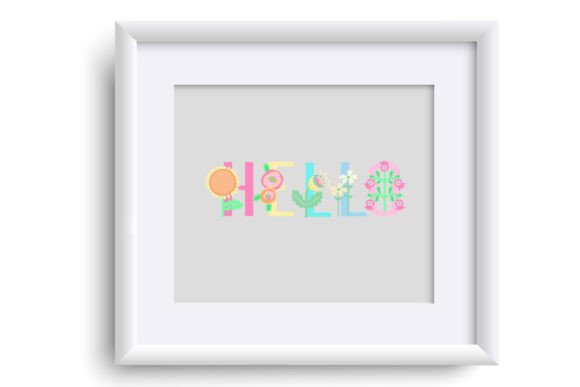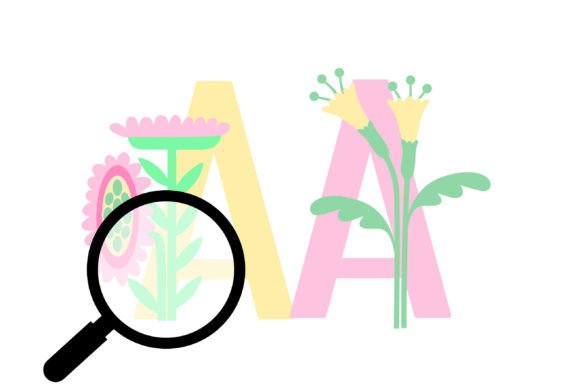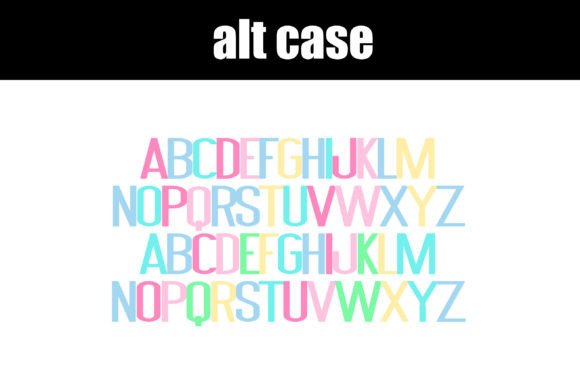
Introduction to Colorful Life Too Font
Have you ever been in a creative flow, staring at a blank page or screen, and suddenly an idea bursts forth in a kaleidoscope of colors? That’s exactly what happened when I discovered the stunning Colorful Life Too Font. This exquisite floral color font is a game-changer for designers looking to add a touch of sophistication and allure to their projects.
Whether you’re designing invitations, cards, posters, or any other creative endeavor, Colorful Life Too Font is sure to captivate your audience and leave a lasting impression.
Key Features of Colorful Life Too Font
- High-quality design resource with a unique and playful style, perfect for creative projects.
- Comes with a transparent background, making it easy to use in any design project.
- Includes a wide range of characters, including uppercase and lowercase letters, numbers, and special symbols.
- Designed with a bold and vibrant color scheme, adding a pop of color to any creative project.
Honest Review: Colorful Life Too Font
I recently had the chance to work with the Colorful Life Too Font, and I must say, it’s been a game-changer for my creative projects. This font is perfect for anyone looking to add a touch of whimsy and personality to their designs. The high-quality graphics and vibrant colors make it a great design resource for both personal and professional projects.
Here are some of the things that work well with the Colorful Life Too Font:
- ✨ The font is highly customizable, allowing you to adjust the size, color, and style to fit your design needs.
- ✨ The transparent background makes it easy to layer the font over other design elements.
- ⚠️ The font is not suitable for small text sizes, as it can become difficult to read.
Overall, I’m really impressed with the Colorful Life Too Font. It’s a high-quality design resource that’s perfect for creative projects. With a few minor limitations, I highly recommend it to anyone looking to add some color and personality to their designs.
The Colorful Life Too Font is perfect for creative projects that require a high-quality, eye-catching font. Some common use cases include:
- Creating social media graphics and posts
- Designing business cards and brochures
- Developing branding materials and logos
For the best results, use the Colorful Life Too Font on a transparent background. This will allow the font to stand out and add a touch of elegance to your design. Additionally, experiment with different font sizes and colors to create a unique and eye-catching look.